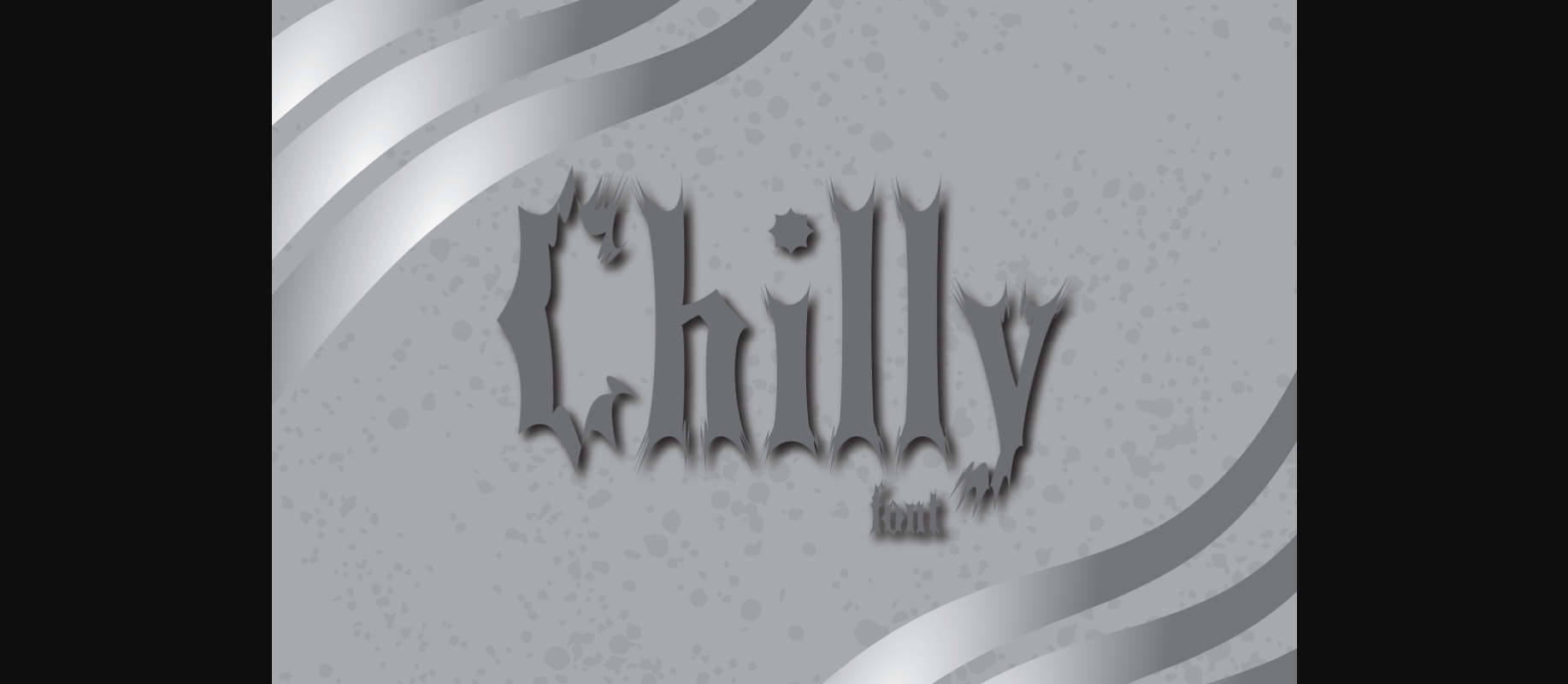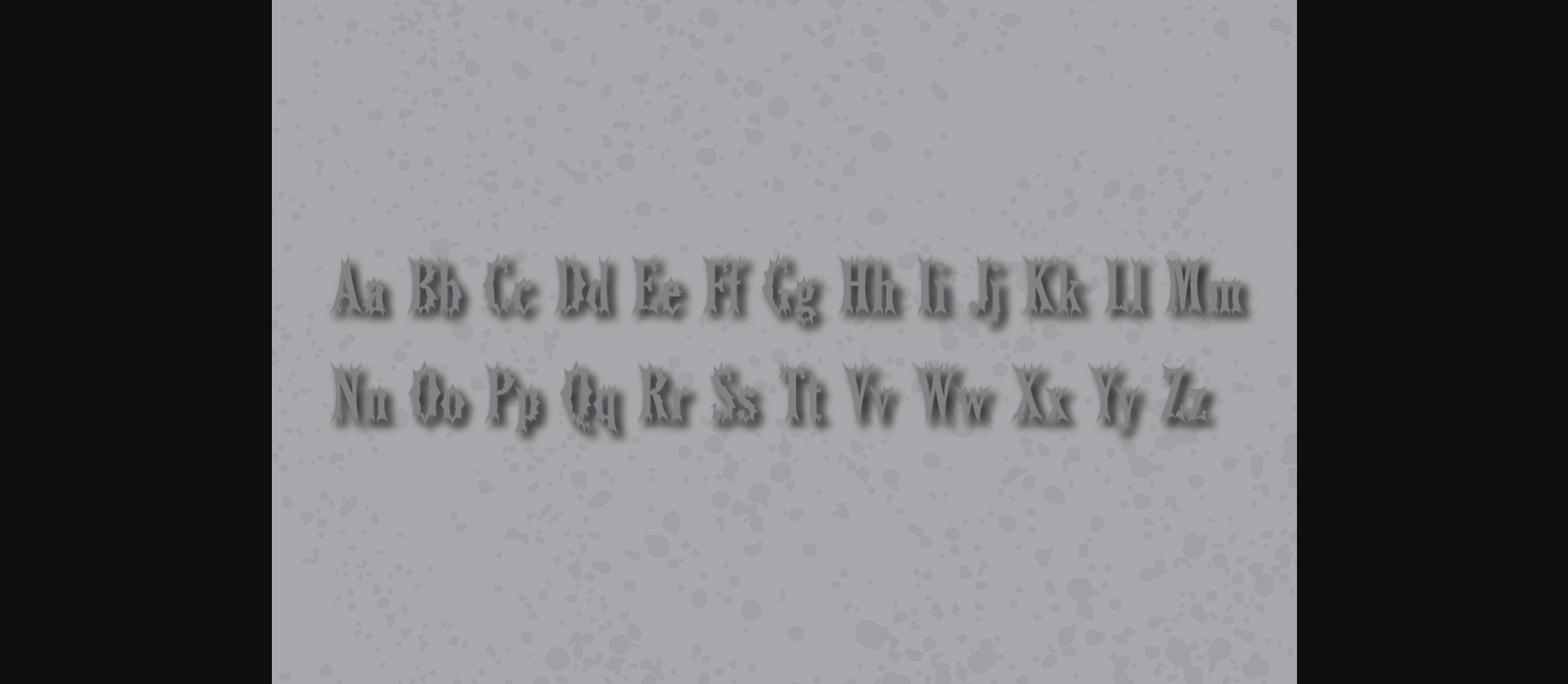
Chilly Font
About Chilly Font
Chilly is a fun decorative font. Unique and attractive, this font is perfect for your upcoming projects including sublimation, greeting cards, advertisements, birthday parties, quotes, titles, brand names, book covers, and more. Your creative options are endless!